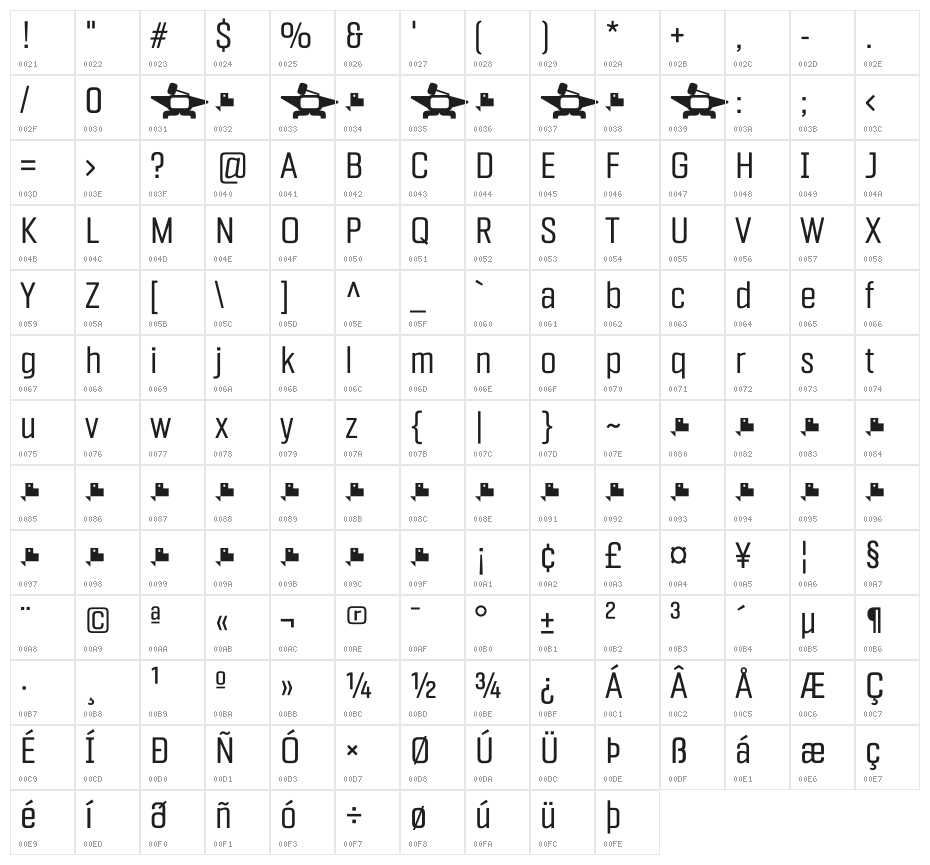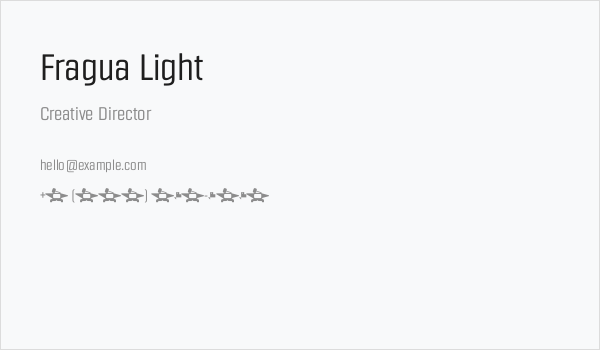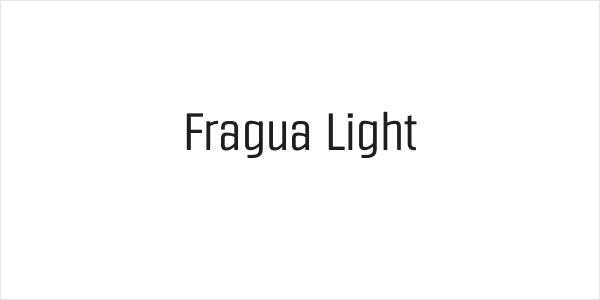
Fragua Light Font
Fragua Light Description
This font presents a clean and modern aesthetic with a geometric sans-serif style. The characters are uniform and well-proportioned, featuring a consistent stroke width that contributes to its sleek appearance. The uppercase letters are bold and commanding, while the lowercase letters maintain a harmonious balance with slightly rounded edges, enhancing readability. The numerals and special characters are designed to complement the overall style, making it versatile for various applications. Its simplicity and clarity make it suitable for both digital and print media.
| Proposed Projects | Ideal for branding, web design, editorial layouts, and advertising campaigns. |